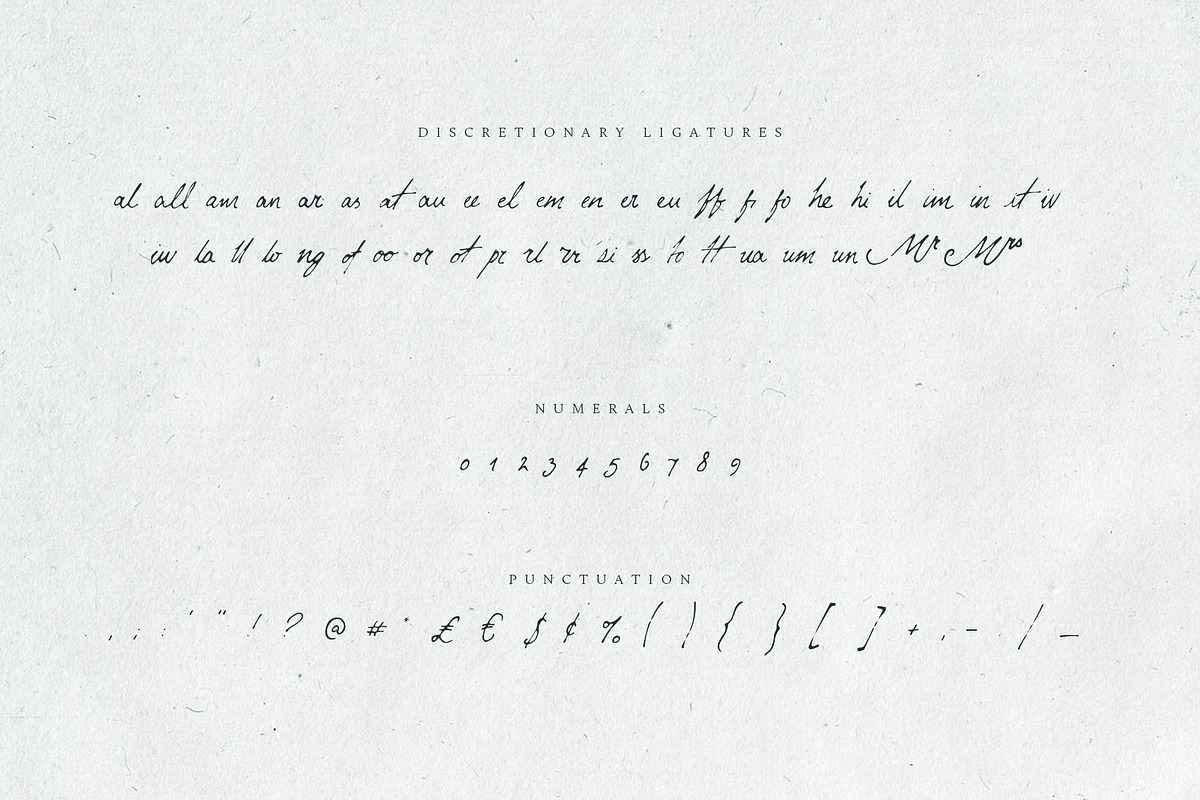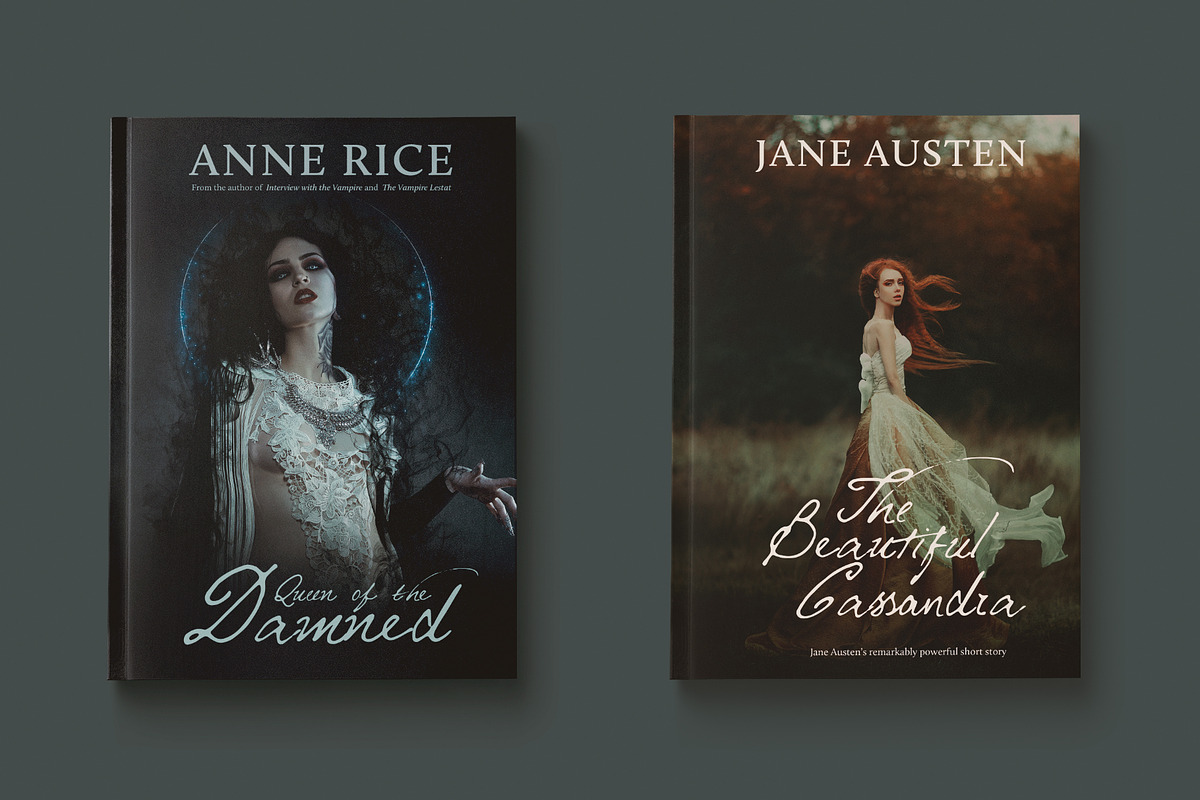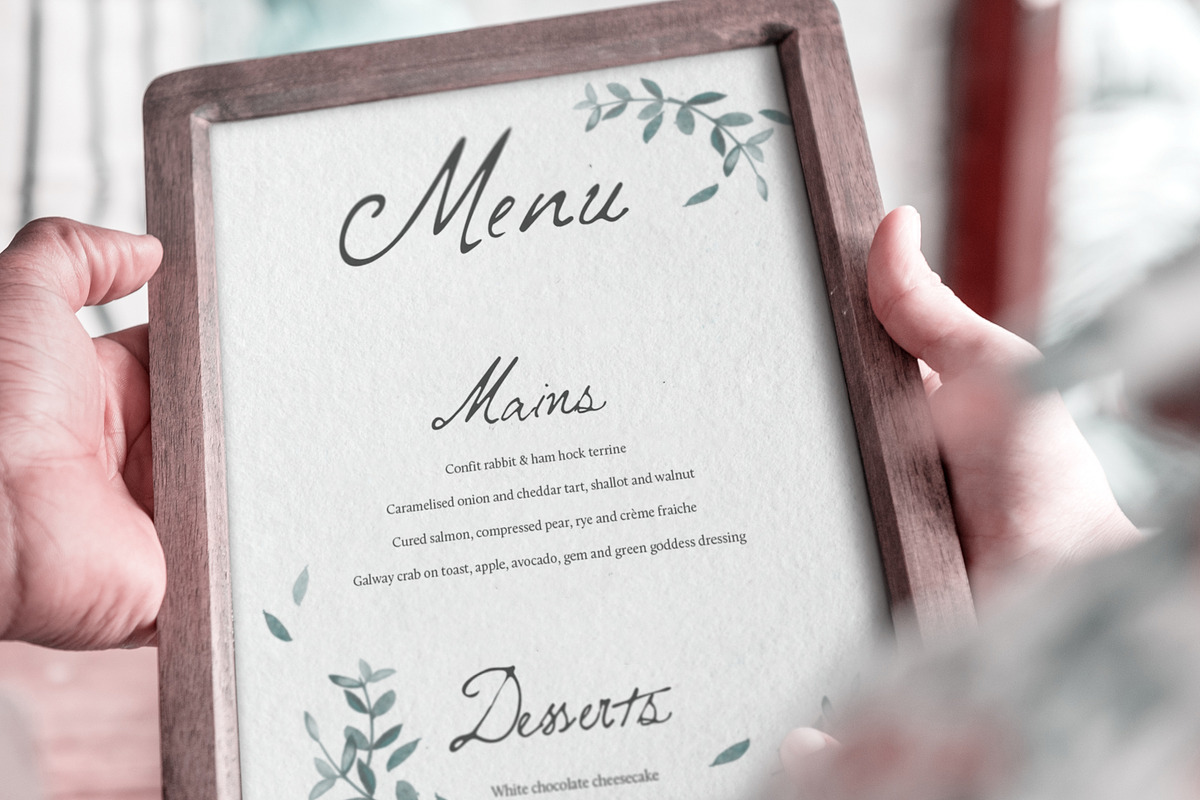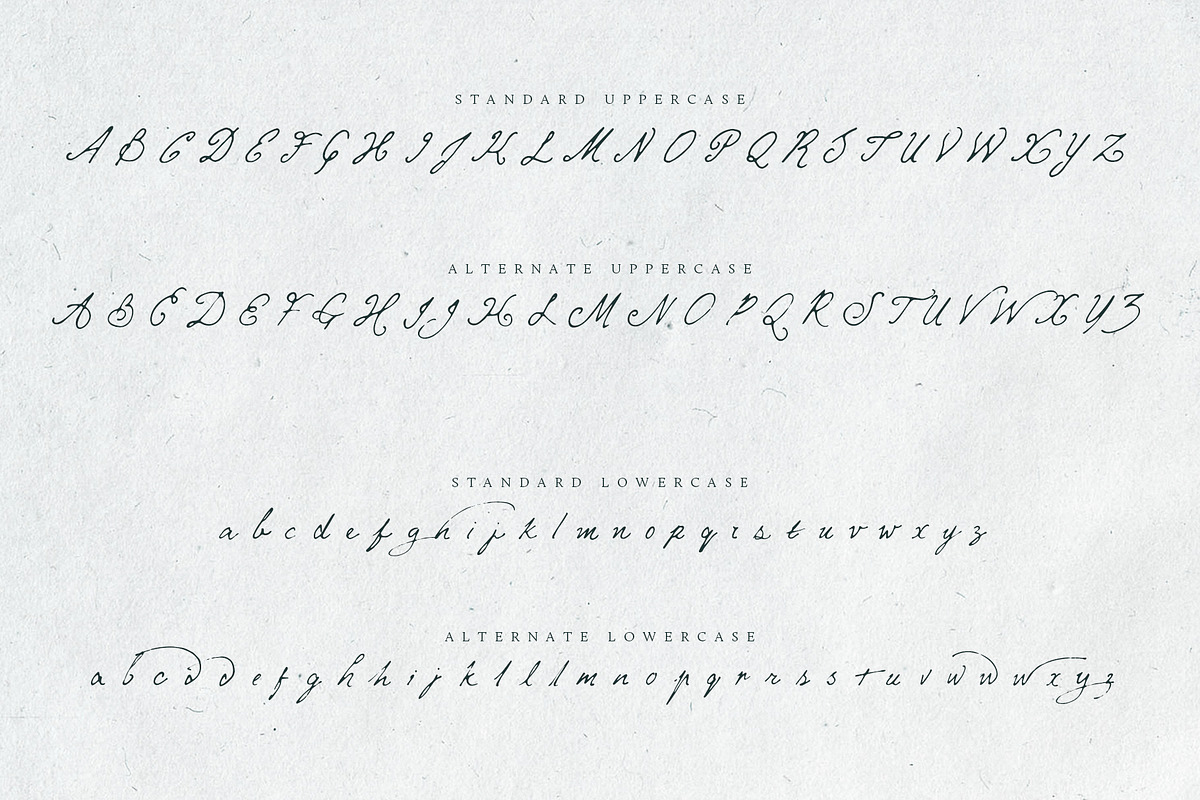
Frometh a land and time of mages, magik and myth....cometh Mythshire
Pray, Mythshire now speaketh many tongues! Multilingual support for 70+ languages!
Mythshire is a handscript font inspired by the cursive and personality-rich handwriting styles of the past. Loaded with a full set of alternate characters (both upper and lowercase) as well as 40+ ligatures there are plenty of options for creating authentically flowing type.
Elegant, characterful, rich, medieval, informal, all these words could be used to describe Mythshire, because of this, its uses are wide and dynamic: from wedding invites and stationery, vintage inspired branding and logos, book jackets and covers, through to scrap-booking, journals, product packaging, genealogy and archival themed work, and wicca, fantasy, roleplaying or medieval inspired advertising and posters; Mythshire hath thine coveredeth :)
Jam packed features
- Upper and lowercase characters
- Full alternate alphabet in both cases
- Numerals and punctuation
- 40+ ligatures